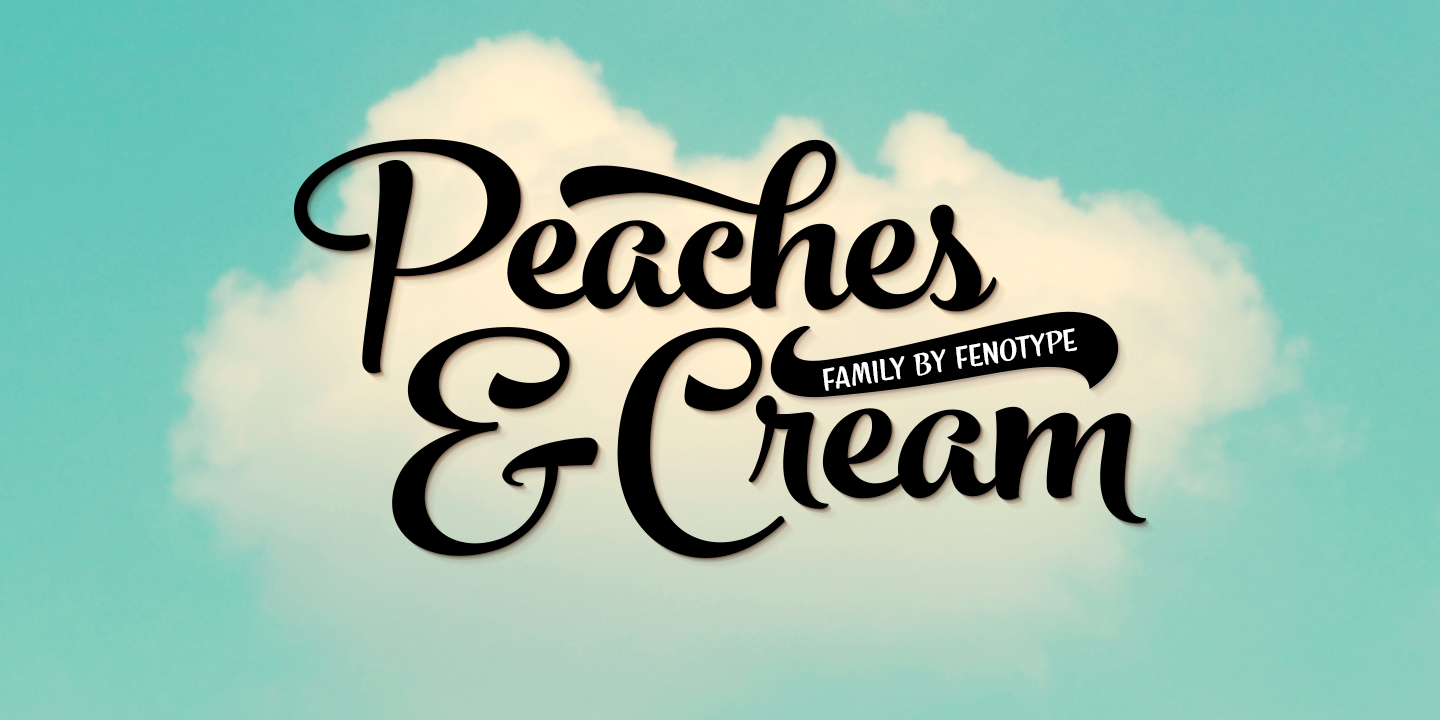
Looking to add a charming and delightful touch to your projects? Peaches And Cream Font Free Download is an excellent choice for a typeface that exudes warmth and friendliness. Please keep in mind that while a Peaches And Cream Font Free Download is available for personal and testing purposes, commercial use of this font requires the purchase of a proper license. This essential step ensures you are compliant with licensing regulations and provides vital support to the talented font designers.
The Peaches And Cream Font is wonderfully versatile and perfectly suited for designs that aim to evoke a sense of playfulness, tenderness, or handcrafted authenticity. Its inviting character often features soft curves and a whimsical feel, making it ideal for children's book illustrations, personalized stationery, and greeting cards. It's also a fantastic option for branding for bakeries, cafes, and artisanal food products, where a cozy and welcoming aesthetic is desired. Furthermore, consider Peaches And Cream Font for wedding invitations, baby shower announcements, and creative social media posts that need a sweet and approachable vibe. It's excellent for craft projects, educational materials, and any design seeking to convey warmth and joy.
What makes the Peaches And Cream Font so exciting is its inherent ability to bring a smile to your audience. It often possesses a gentle, flowing quality that sets it apart from more rigid or formal typefaces. This characteristic allows it to convey emotion and personality, making your text not just readable, but also endearing. It’s a font that can transform simple words into a visual hug, adding a layer of charming simplicity and heartfelt appeal to any creative endeavor. Its unique aesthetic ensures your work will resonate with an audience looking for beauty, comfort, and a touch of whimsy.
The Peaches And Cream Font family typically emphasizes its charming stylistic elements. You'll often find a well-crafted Regular weight, which might be complemented by stylistic alternates, ligatures, or decorative swashes that enhance its handwritten or calligraphic feel. Some versions might also include bold or light variations to offer slight typographic contrasts while maintaining the font's core charming personality. These additional features provide designers with the flexibility to create truly unique and engaging text compositions.